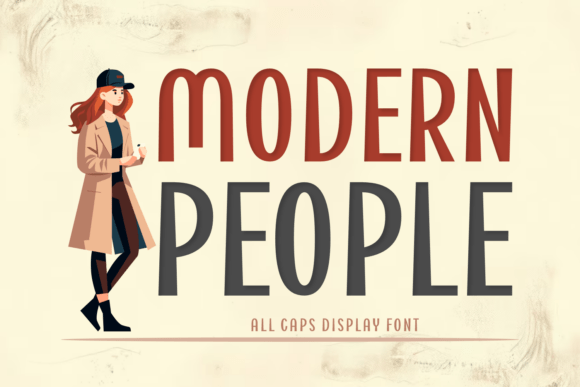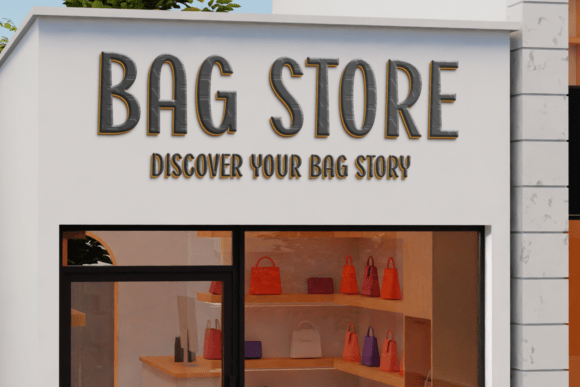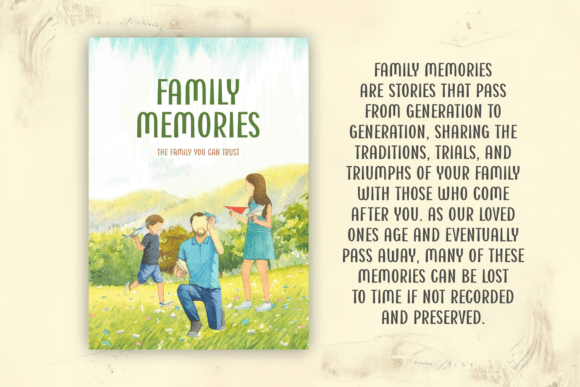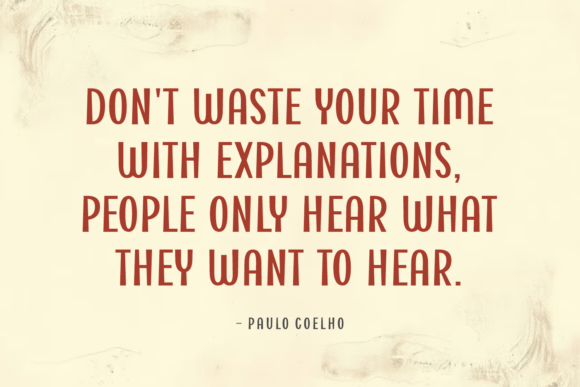
Modern People Font: A Bold Display Font for Impactful Headlines
About the Modern People Font
Let us introduce you to Modern People Font, where timeless design meets modern craftsmanship. Introducing Modern People, a captivating display typeface embodying an alluring charm. Perfectly suited for your noteworthy presentations, attention-grabbing banners, and impactful headlines.
It adds an element of sophistication to any book cover and the right level of oomph to your advertisements. For product packing needs, Modern People is an ideal choice as it effortlessly combines elegance and readability. Chisel your style and express your uniqueness with the Modern People font.
Modern People’s strong, confident strokes make it ideal for headlines, logos, and short impactful statements across branding materials and posters. Its refined elegance also translates well to packaging for premium products. However, its display nature means it’s unsuitable for body text or extended reading. Avoid using it in user interfaces or situations requiring high readability over short distances.
To complement its sophisticated boldness, consider pairing Modern People with a clean sans-serif like Lato for body text or a more geometric sans-serif like Montserrat for a modern, balanced feel. A delicate script font like Great Vibes could add a touch of luxury for specific applications, enhancing its inherent elegance.
The overall personality of Modern People is sophisticated and bold, conveying confidence and a touch of luxury. It’s a perfect fit for brands aiming for a premium, high-end image, or projects that require a strong visual presence.
Modern People Font Usage Examples
Modern People Font Example